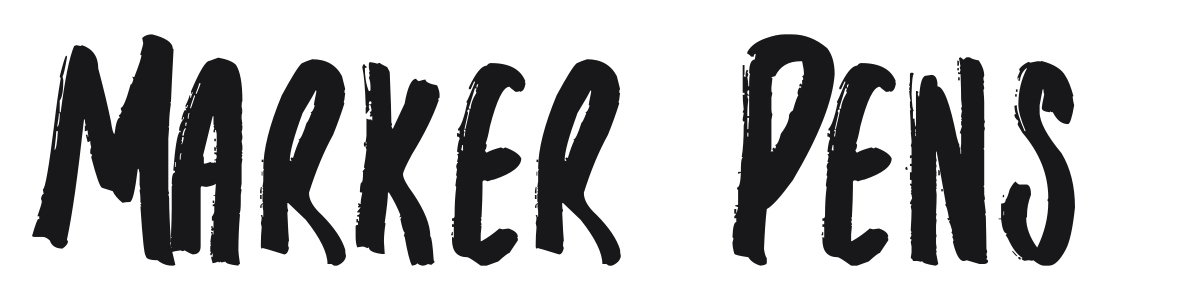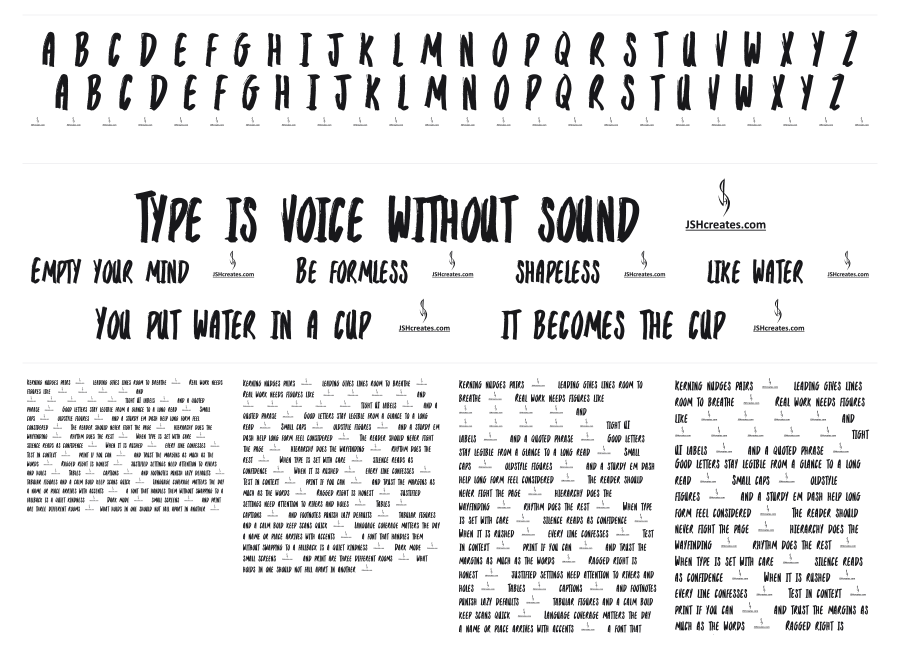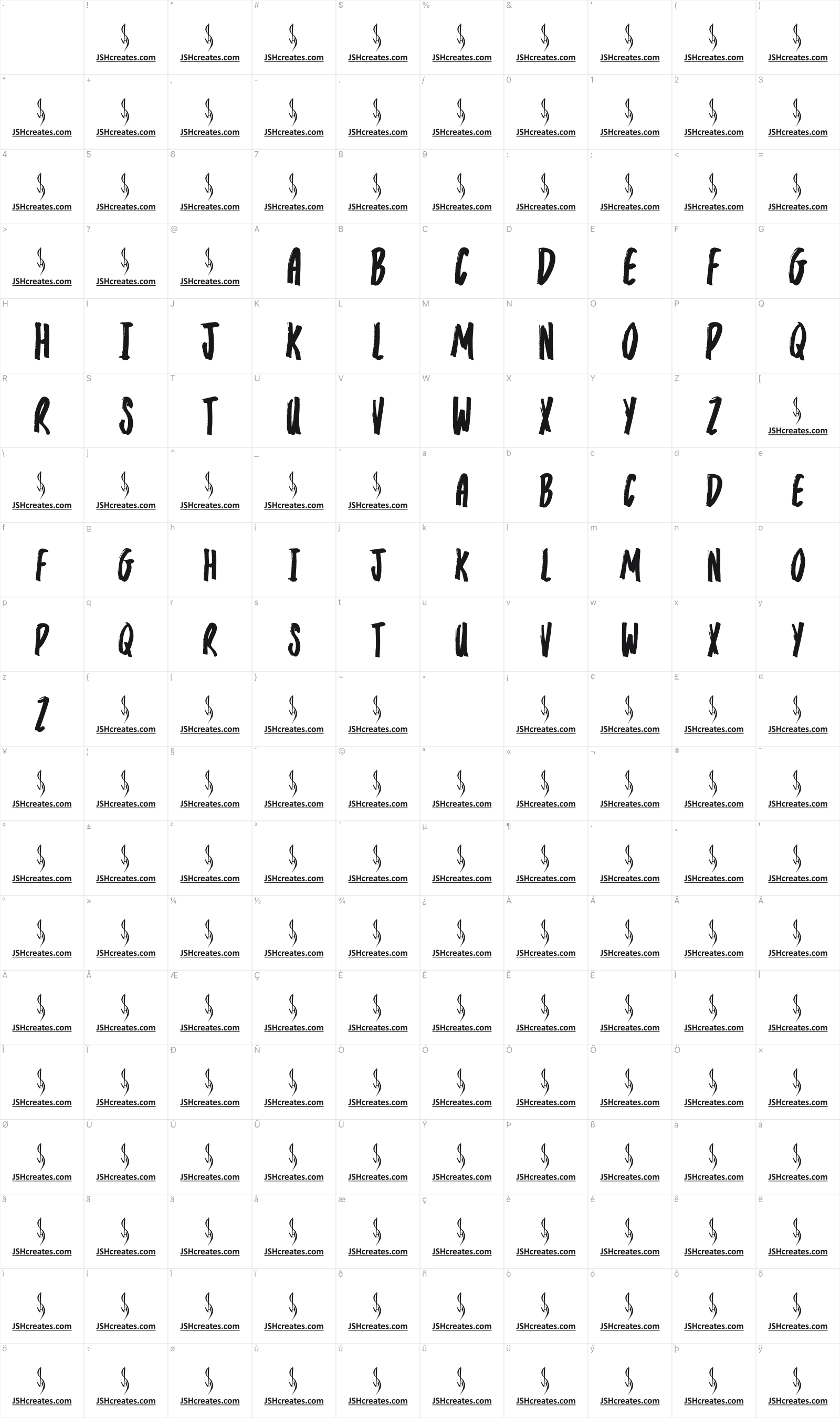
Marker Pens
Marker Pens is a bold brush display font that mimics the look of a thick felt-tip marker dragged with force across a rough surface. The bristle texture and ink-drag effects give each character a raw, hand-done energy that feels street-level and immediate. A strong choice for concert posters, brand identities, and packaging that needs attitude.